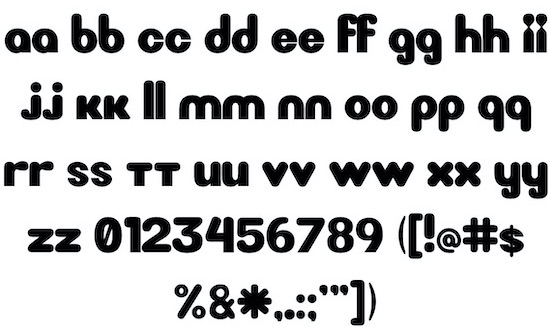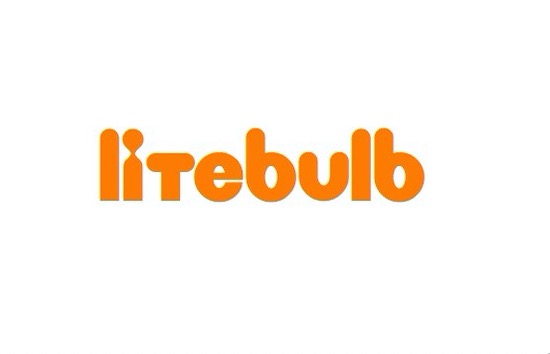
Litebulb is a classy and chic display font that is made to give your logotype & headlines designs a stylish touch. It’s PUA encoded so that you can access easily all the ligatures and glyphs.
Litebulb Display Font